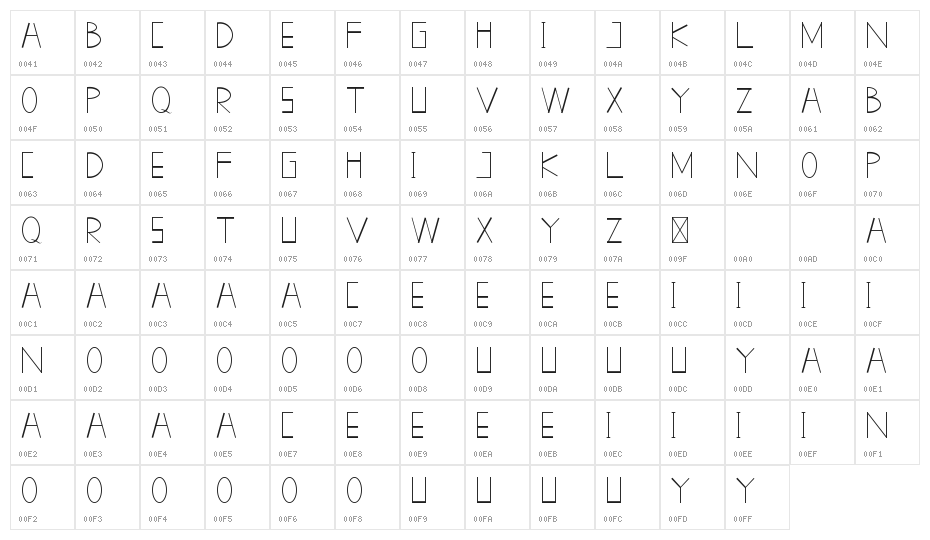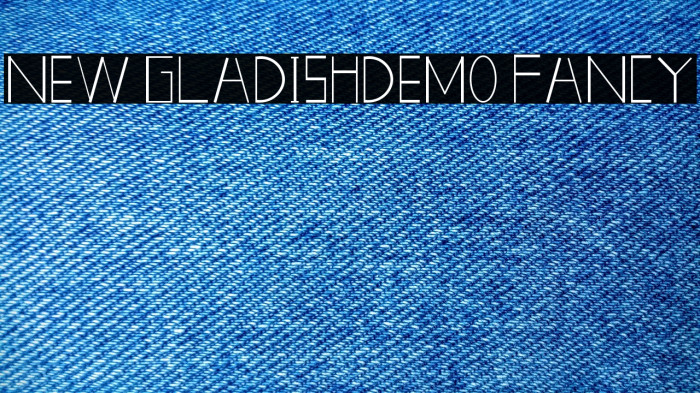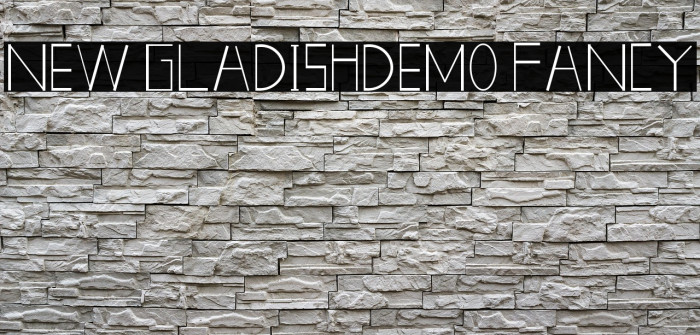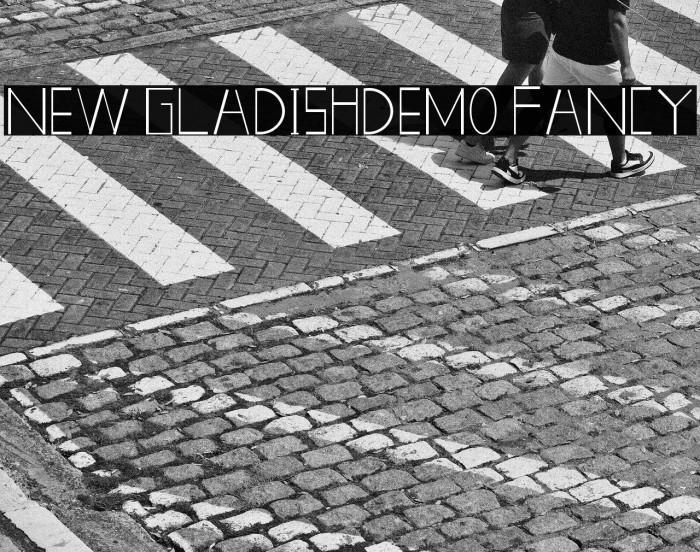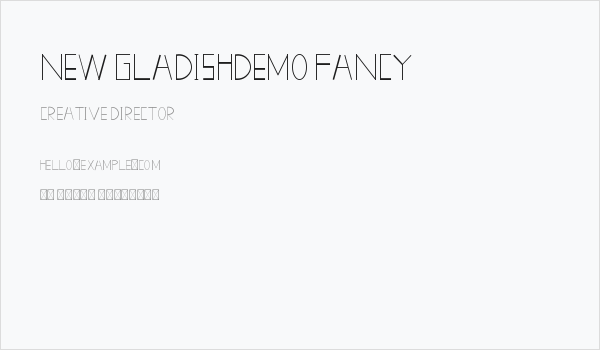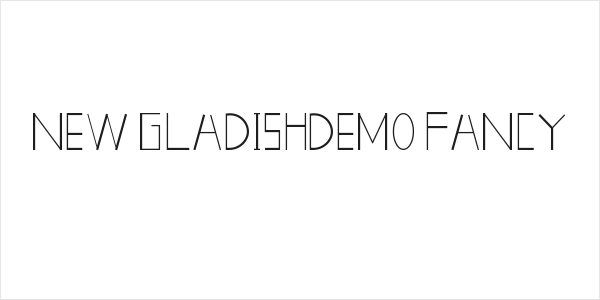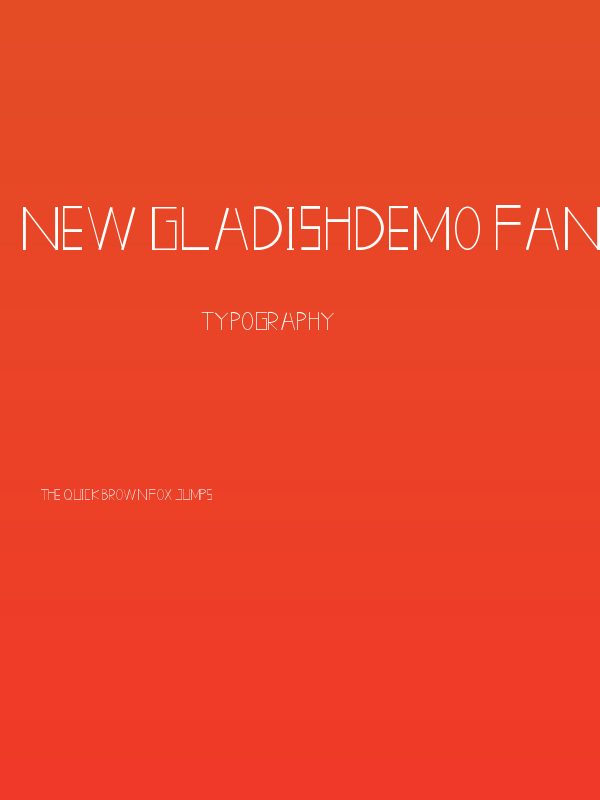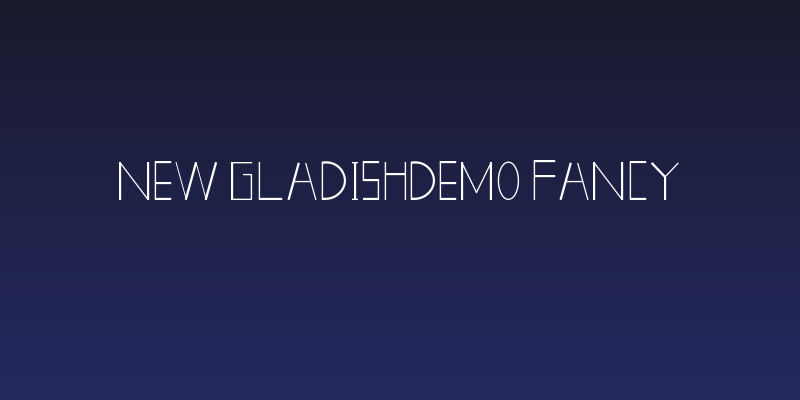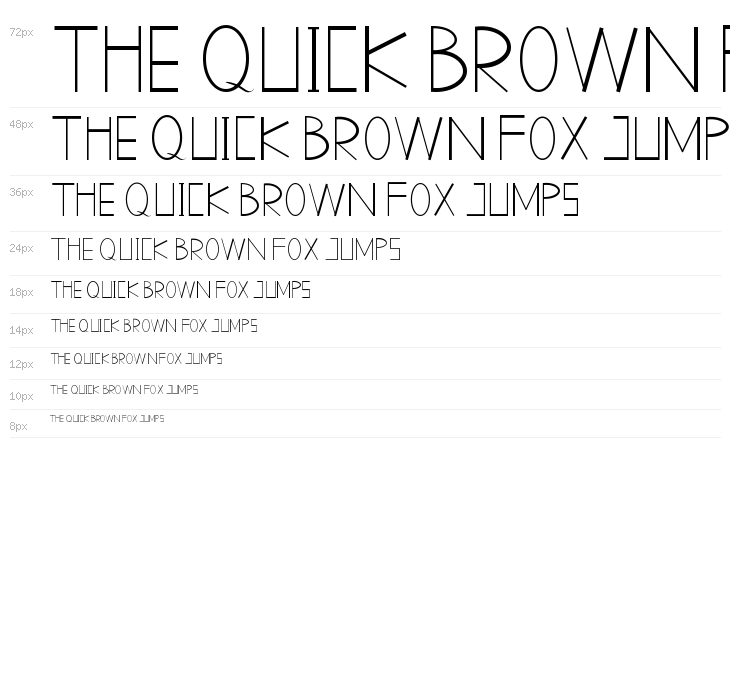
New GLADISHdemo Fancy Font
New GLADISHdemo Fancy Description
This font features a unique and modern design with a geometric and angular style. The characters are constructed with straight lines and sharp angles, giving it a futuristic and tech-inspired appearance. The uppercase letters are particularly distinctive, with some characters incorporating unexpected breaks and asymmetrical elements. The lowercase letters maintain a consistent style, complementing the uppercase set with their own angular forms. The numerals and special characters follow the same design principles, ensuring a cohesive look across all glyphs. This font's clean lines and structured form make it suitable for projects that require a contemporary and edgy aesthetic.